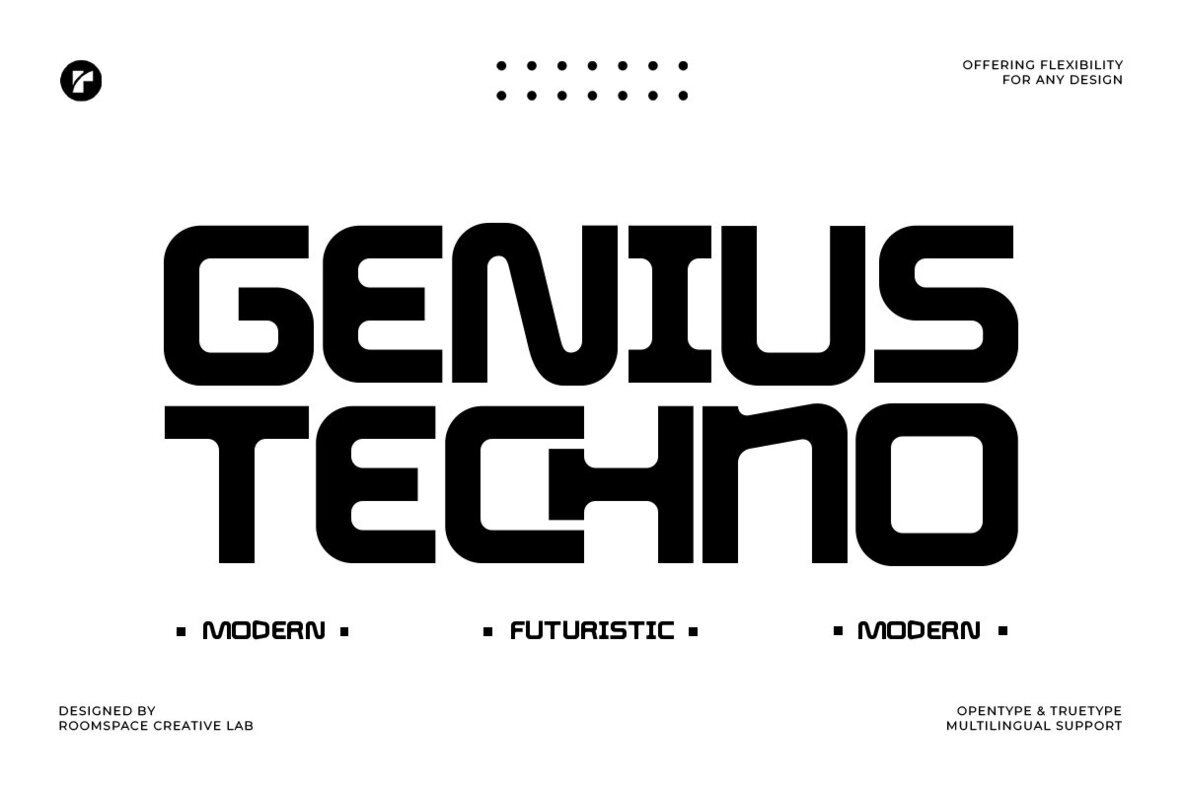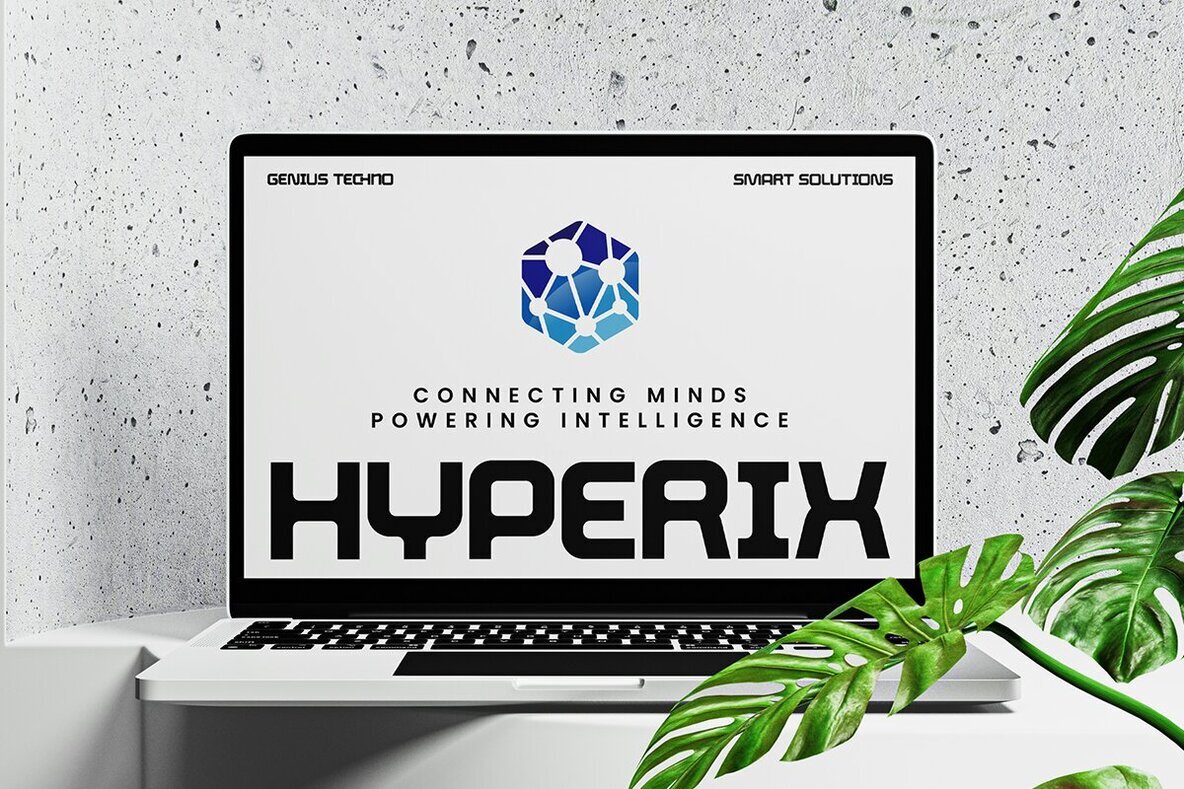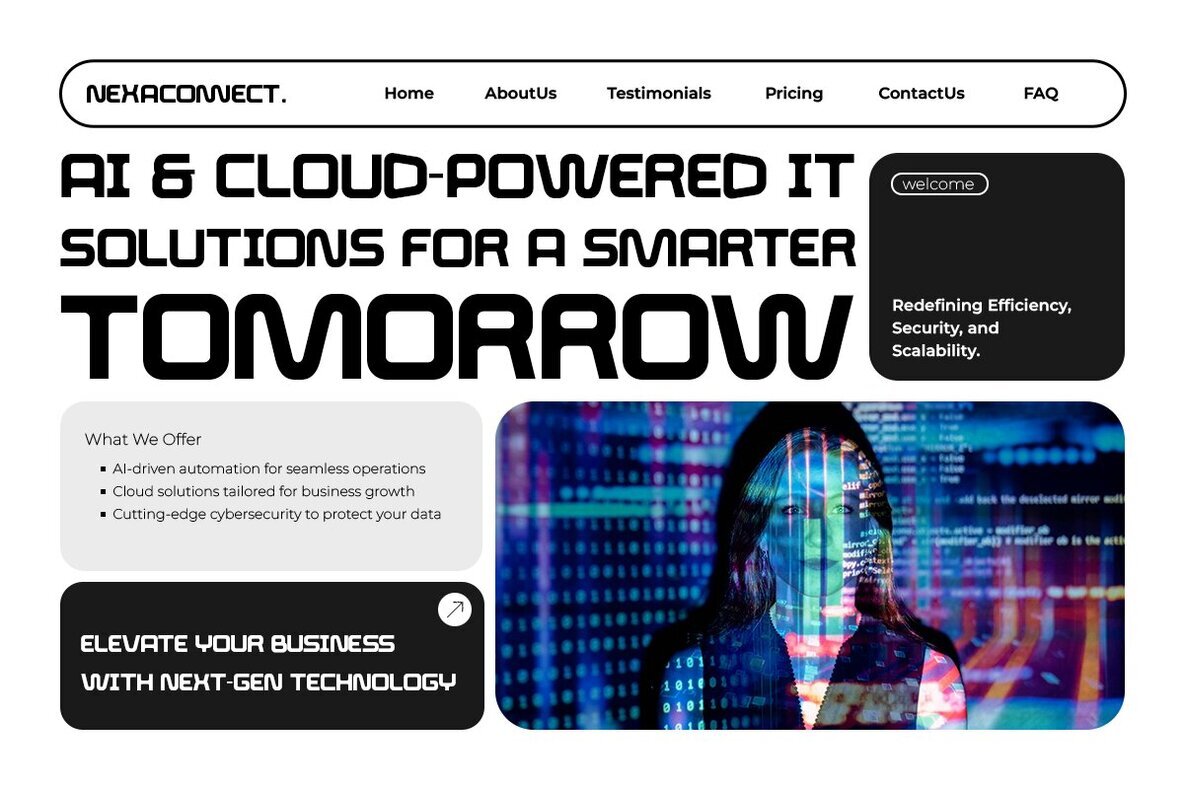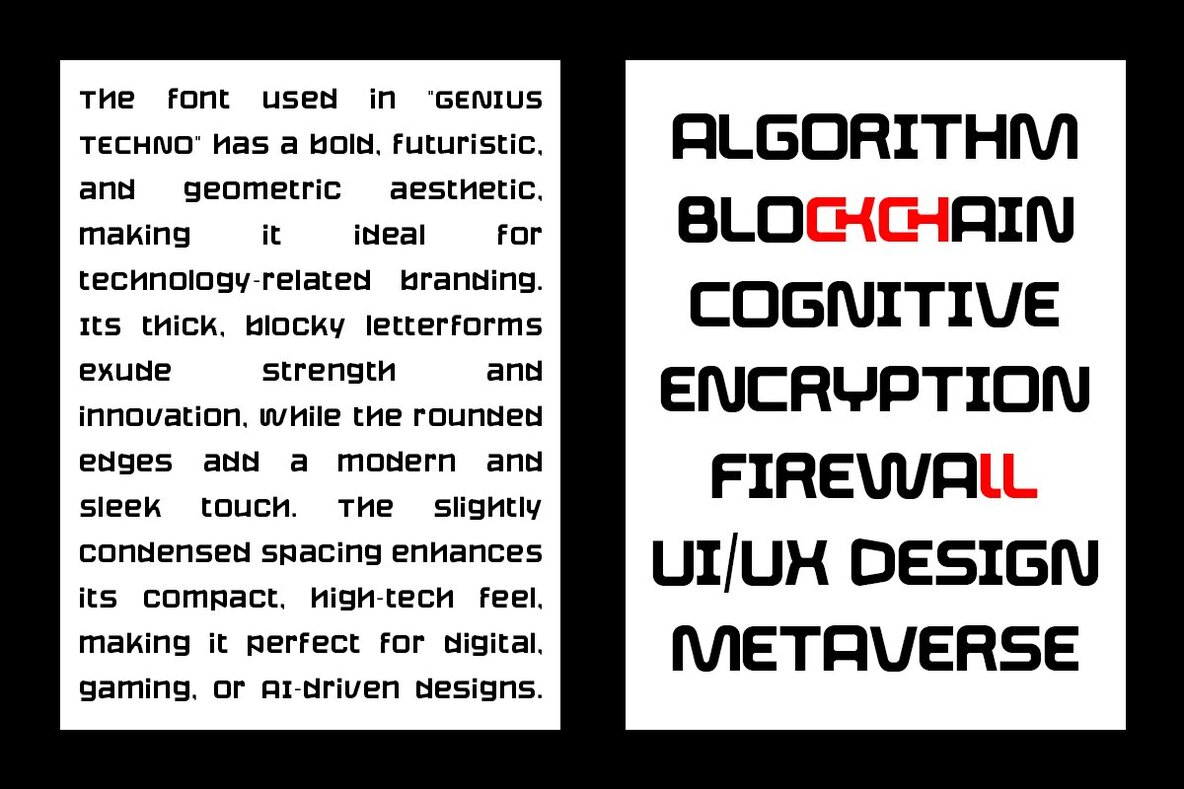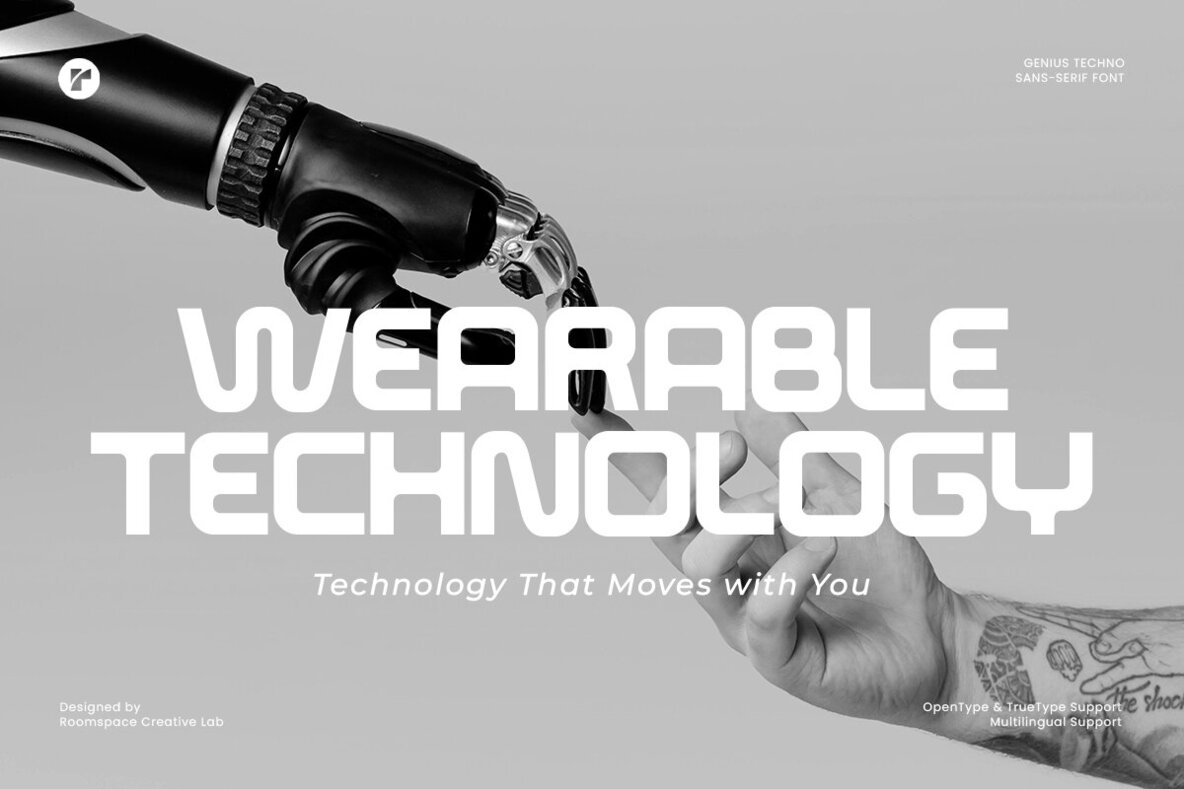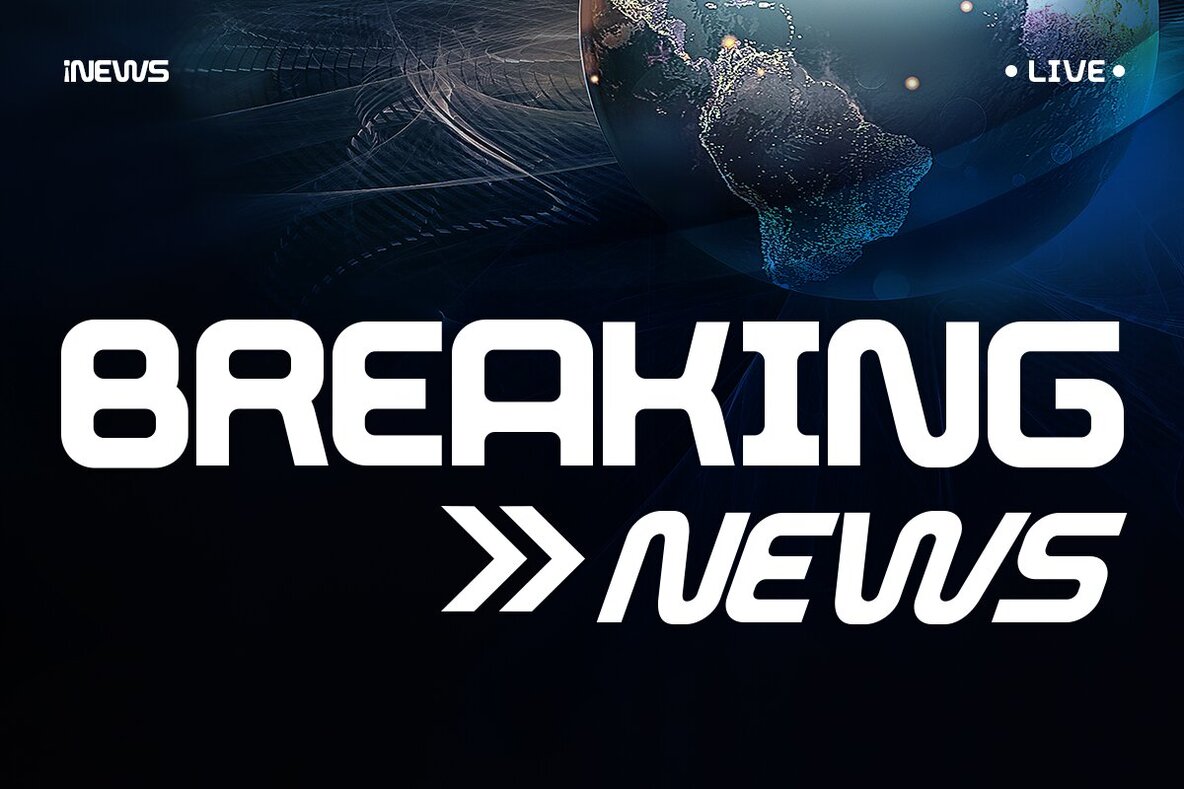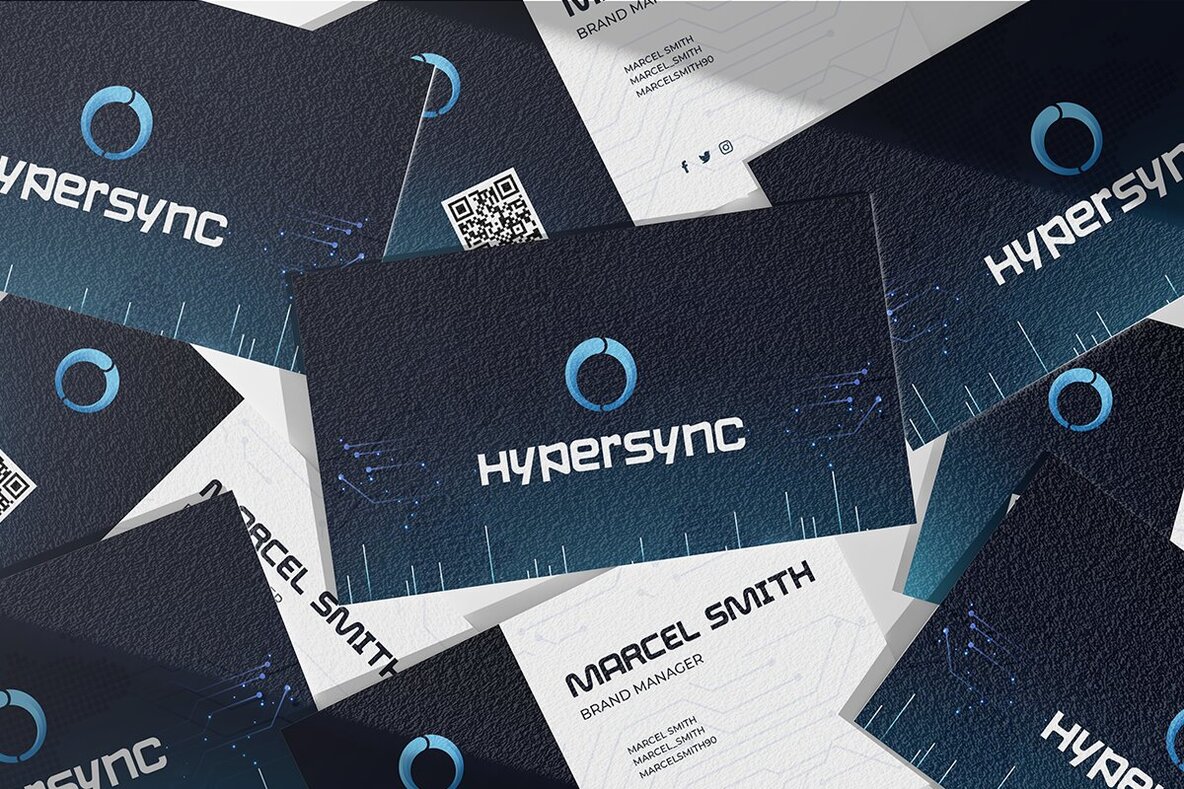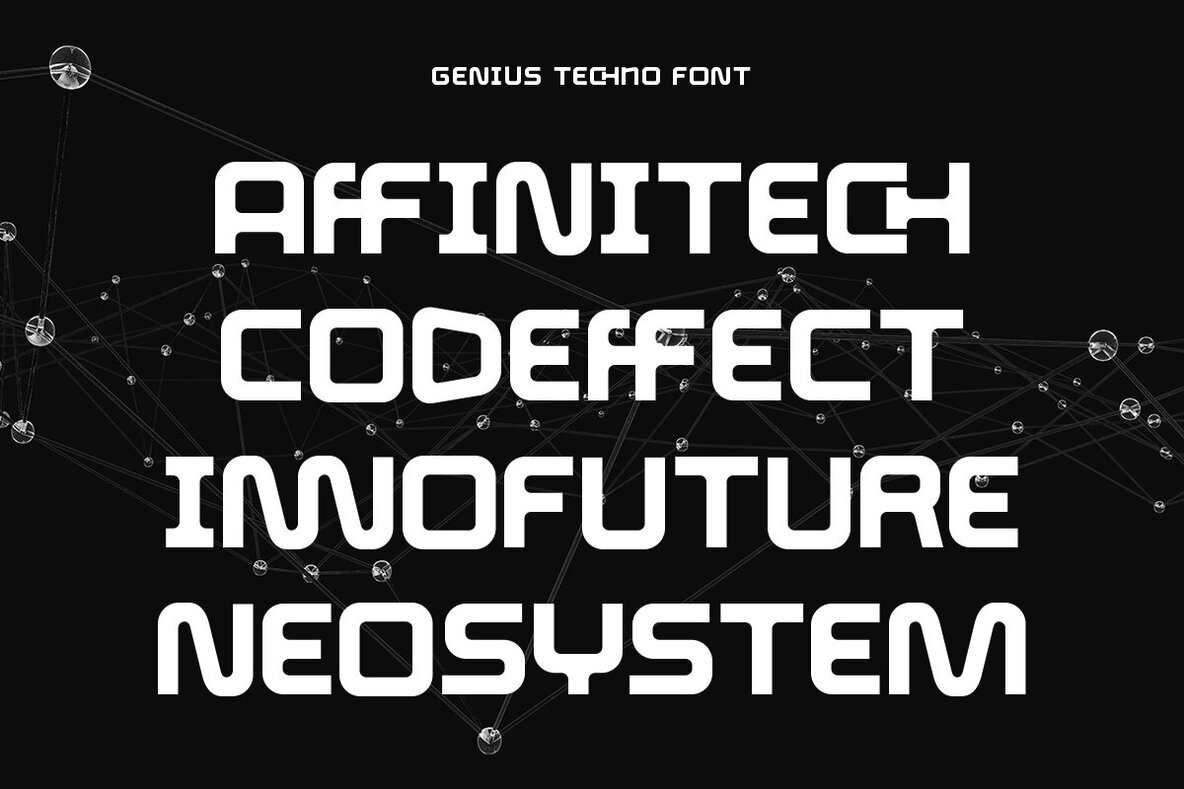
Geius Techno Font
Genius Techno stands as a modern futuristic typeface that captures the sleek aesthetics synonymous with technology and progression. With bold geometric shapes, rounded edges, and a look inspired by technology, this font perfectly complements brands delving into UI/UX design, gaming lore, sci-fi narratives, and forward-thinking branding efforts. Taking cues from the digital era, cyberpunk visuals, and contemporary AI design trends, Genius Techno marries a high-tech appearance with modern versatility. Ideal for websites, brand identities, posters, or any tech-related creative endeavors, it enhances each project with its commanding presence and clear readability.Genius Techno Typeface: A Nod to Innovation